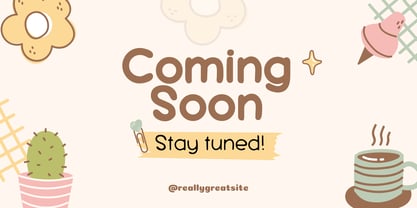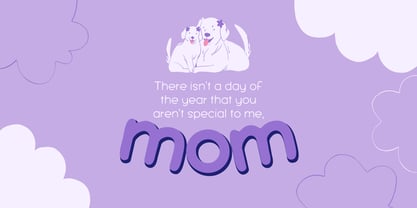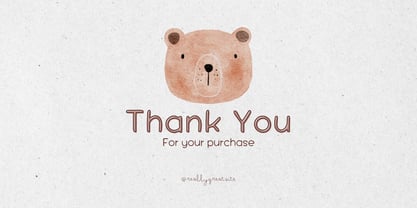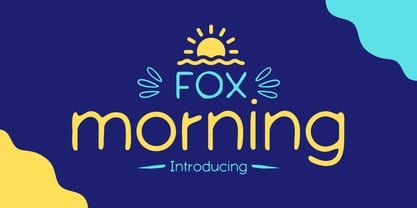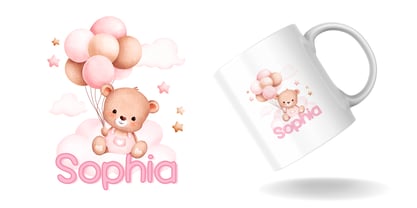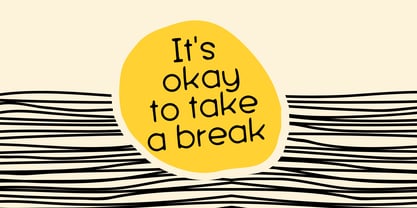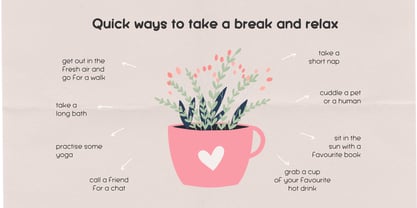
Fox Morning
por Fox7
La familia tipográfica Fox Morning fue diseñada por Rattana Rattanawan y publicada por Fox7. Fox Morning contiene 1 estilos. Más información sobre esta familia
Fox Morning is a playful and cheerful display font. it is perfect for projects that aim to convey warmth, positivity, and creativity. This font is ideal for logos, children’s books, packaging, social media graphics, and more. Its bright and clean design ensures legibility while adding a touch of charm and joy to your text.
Diseñadores: Rattana Rattanawan
Fundición: Fox7